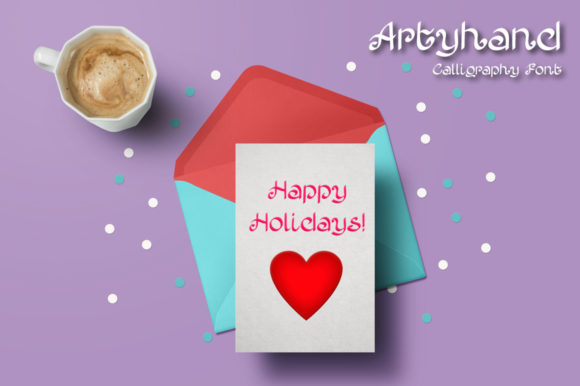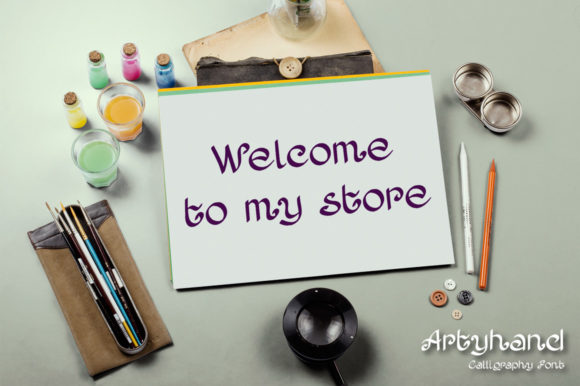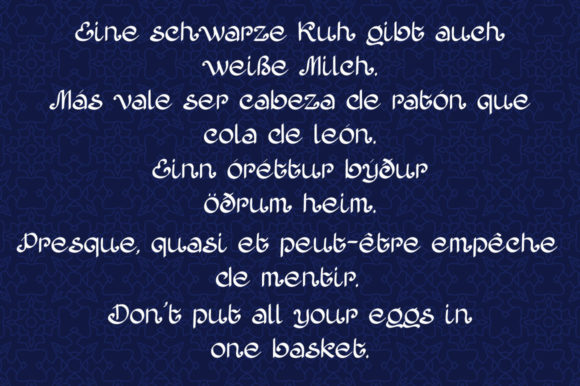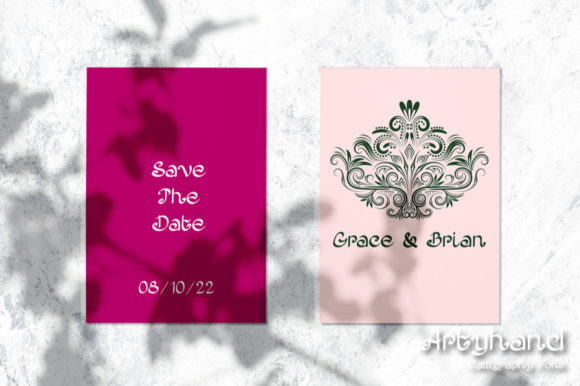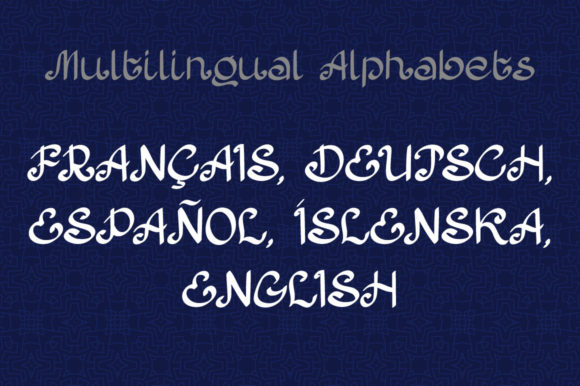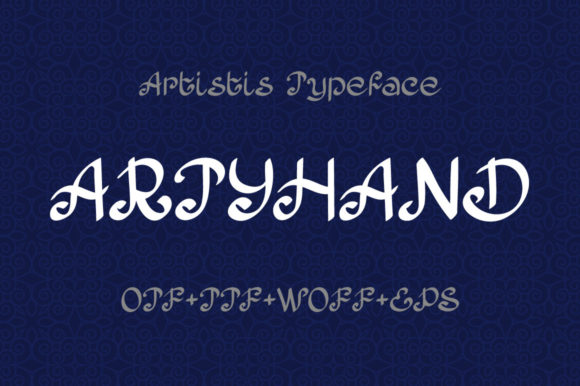
Discover the Charm of Artyhand Font: Elevate Your Designs with a Whimsical Script Font
Are you a designer or crafter looking for a font that can add a touch of personality to your creations? Look no further than Artyhand Font, a whimsical script font with a relaxed theme that’s sure to become a valuable asset in your font library. With its lovely style and versatility, Artyhand Font can elevate any project, regardless of the topic or theme.
What Makes Artyhand Font So Special?
Artyhand Font is a unique and charming script font that’s perfect for designers and crafters who want to add a personal touch to their work. Its relaxed theme and whimsical style make it an excellent choice for a wide range of projects, from creative branding and advertising to packaging, signage, and more.
One of the standout features of Artyhand Font is its ability to work well with a variety of topics and themes. Whether you’re designing a logo for a fashion brand, creating a social media graphic for a lifestyle influencer, or crafting a handmade product label, Artyhand Font is sure to bring a touch of elegance and sophistication to your work.
The Benefits of Using Artyhand Font
So why should you choose Artyhand Font for your next project? Here are just a few benefits of using this versatile and charming font:
- Unique and eye-catching: Artyhand Font is a one-of-a-kind script font that’s sure to grab attention and set your work apart from the crowd.
- Versatile: With its relaxed theme and whimsical style, Artyhand Font can be used for a wide range of projects and themes.
- Elegant and sophisticated: Despite its playful nature, Artyhand Font has an elegant and sophisticated feel that’s perfect for high-end branding and design.
- Easy to read: Despite its script style, Artyhand Font is easy to read and understand, making it perfect for body text and headlines.
How to Use Artyhand Font in Your Designs
Artyhand Font is incredibly easy to use and can be incorporated into your designs in a variety of ways. Here are a few ideas to get you started:
- Logos and branding: Use Artyhand Font as a standalone logo or pair it with other fonts to create a unique and memorable brand identity.
- Social media graphics: Add a touch of personality to your social media graphics with Artyhand Font, perfect for creating engaging and shareable content.
- Packaging and labeling: Use Artyhand Font to add a personal touch to your product packaging and labeling, helping to set your brand apart from the competition.
- Signage and display: Artyhand Font is perfect for creating eye-catching signage and display materials, from billboards to banners and more.
Tips and Tricks for Getting the Most Out of Artyhand Font
To get the most out of Artyhand Font, here are a few tips and tricks to keep in mind:
- Experiment with different colors: Artyhand Font looks great in a variety of colors, so don’t be afraid to experiment and find the perfect hue for your design.
- Play with font sizes: Artyhand Font works well at a range of font sizes, from large and bold to small and delicate.
- Pair with other fonts: Artyhand Font pairs well with a variety of other fonts, so feel free to experiment and find the perfect combination for your design.
In conclusion, Artyhand Font is a whimsical script font with a relaxed theme that’s sure to become a valuable asset in your font library. With its lovely style and versatility, Artyhand Font can elevate any project and add a touch of personality to your designs. Whether you’re a designer or crafter, Artyhand Font is the perfect choice for anyone looking to create unique and eye-catching work.